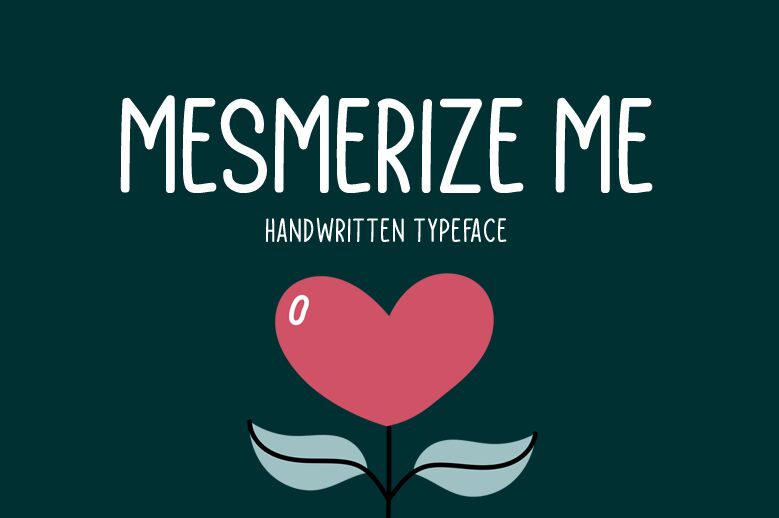
Mesmerize Me
Mesmerize Me, the latest creation by Md Shohail Bhuian, is a handwritten font that exudes elegance and sophistication. With its condensed design and semi-light weight, it's perfect for projects that require a bold statement without sacrificing readability. Whether you're designing a fashion magazine or creating social media graphics for a high-end brand, Mesmerize Me will add an extra touch of luxury to your work. Its all-caps style provides versatility in branding materials such as logos, business cards and product packaging. Don't settle for ordinary typography - make your projects unforgettable with Mesmerize Me!